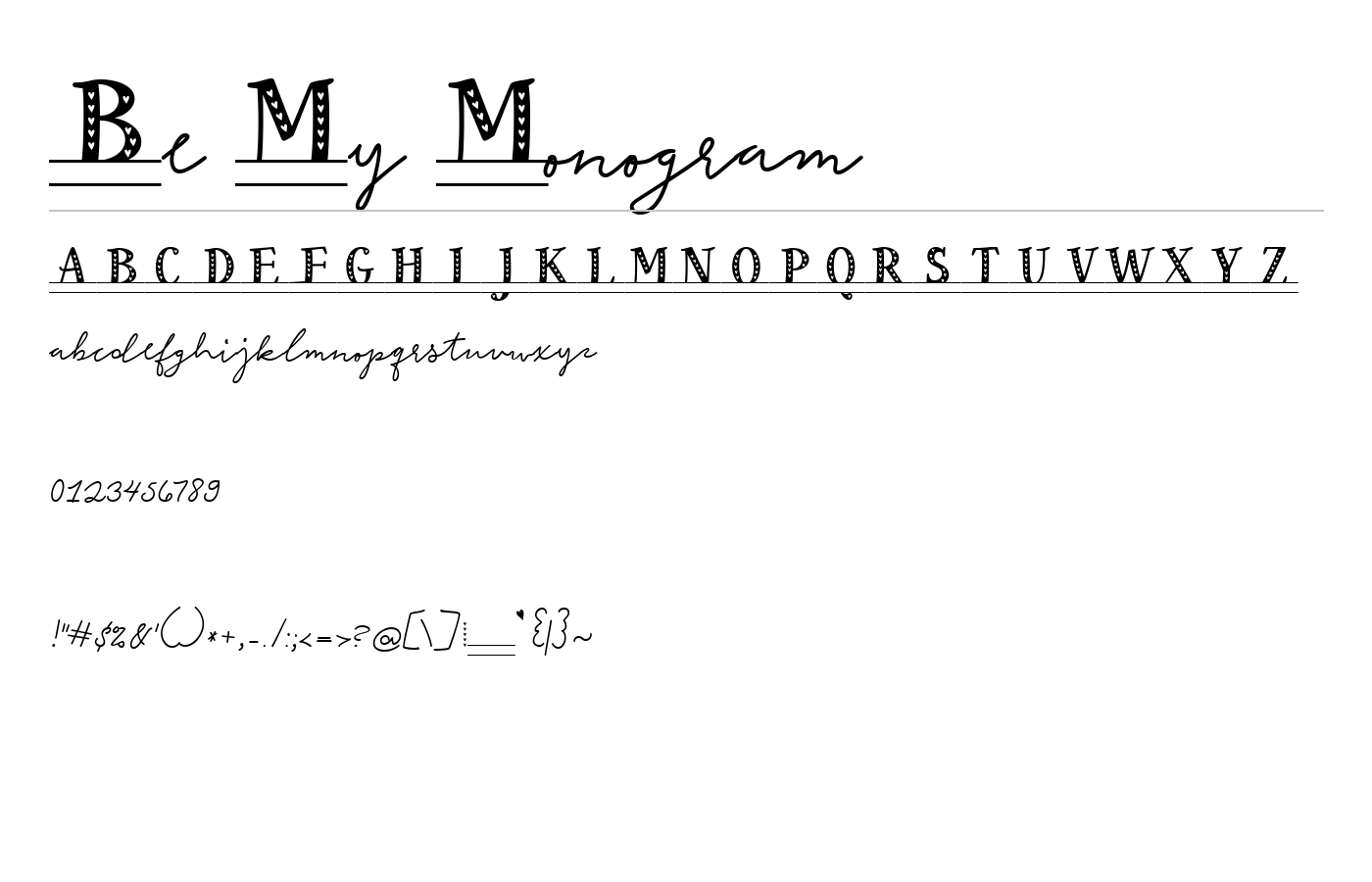
Be My Monogram is a playful and elegant display font combining decorative serif uppercase letters with whimsical heart motifs and a casual, flowing script for lowercase and numerals. Its thin strokes and charming details give it a light, romantic feel, making it perfect for personalized monograms, wedding invitations, and fashion branding that seeks a blend of vintage sophistication and modern friendliness. This font works best in creative projects where a unique, intimate touch is desired, especially for logos and decorative headlines.
Be My Monogram Font
About Be My Monogram Font